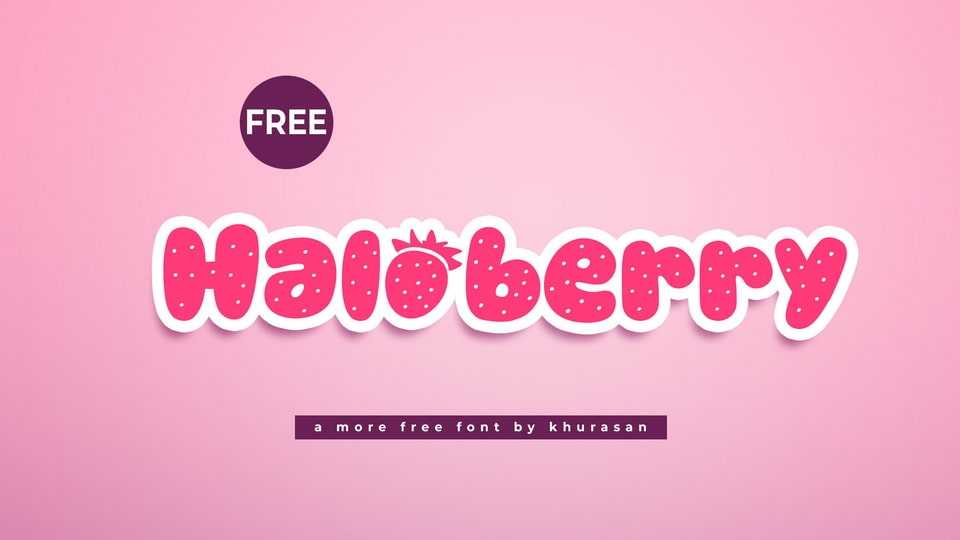
Download Haloberry font, a playful and cute hand-crafted typeface inspired by the sweet charm of strawberries with its rounded, juicy letterforms and soft, organic curves.